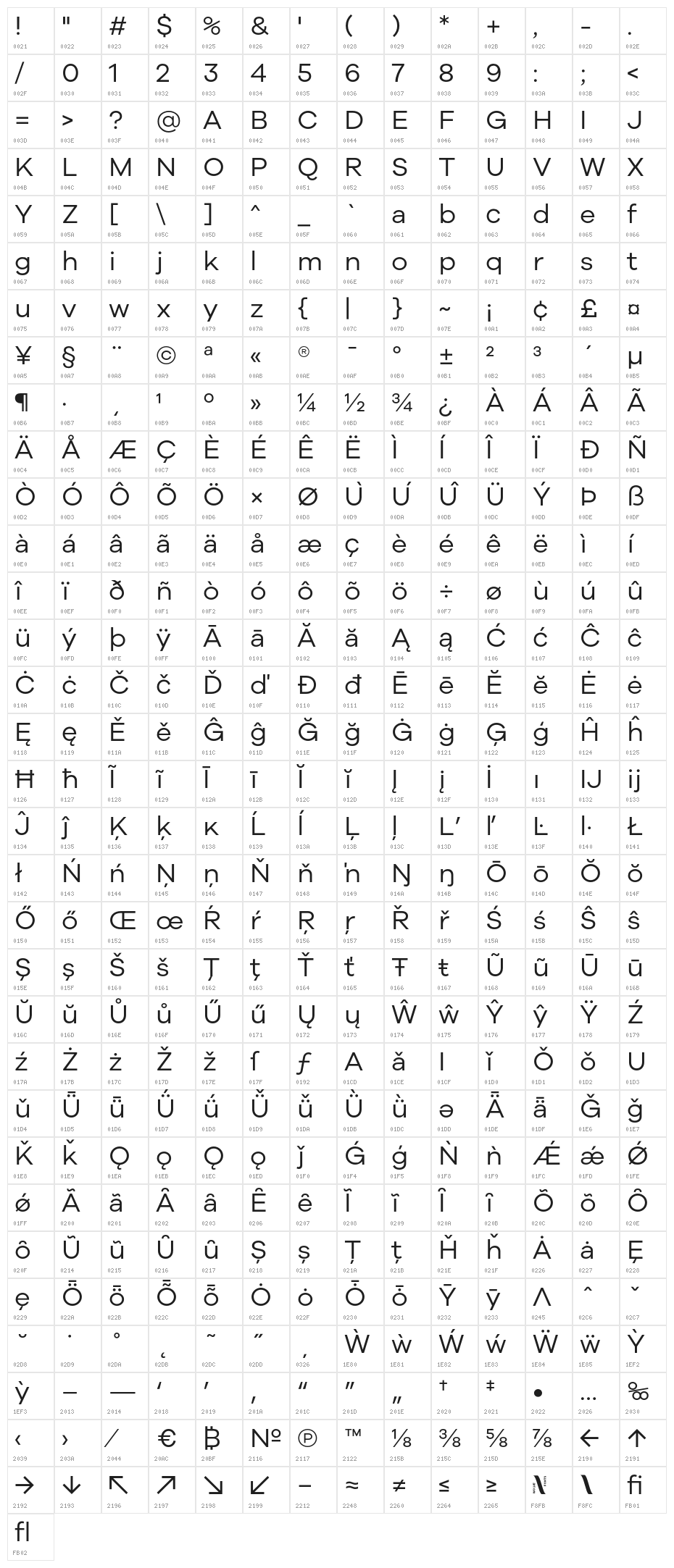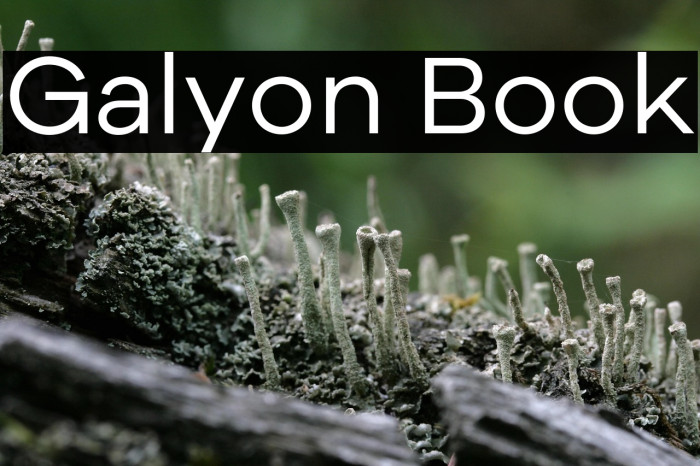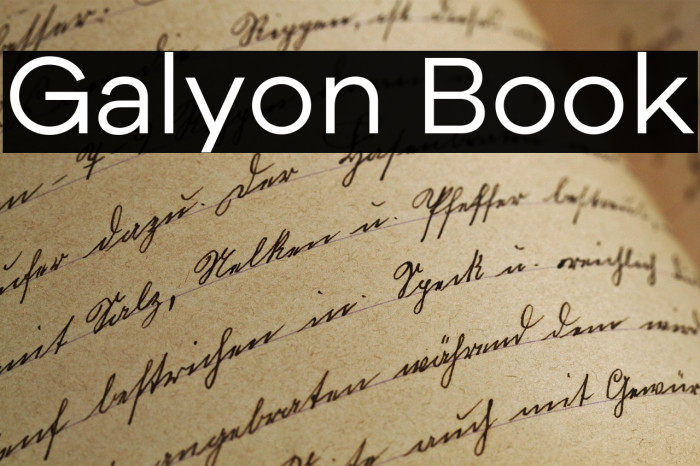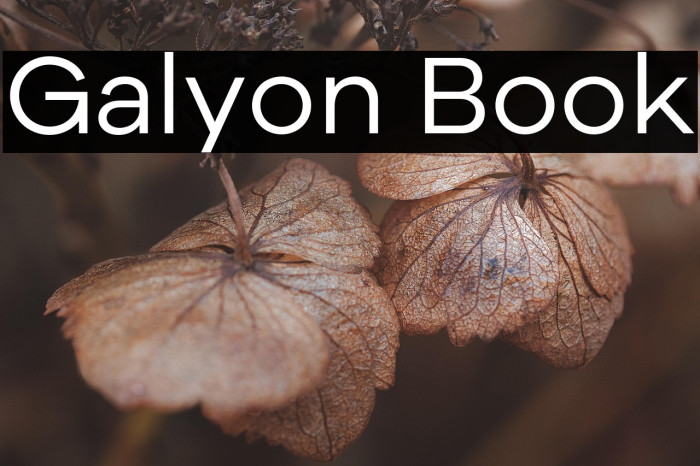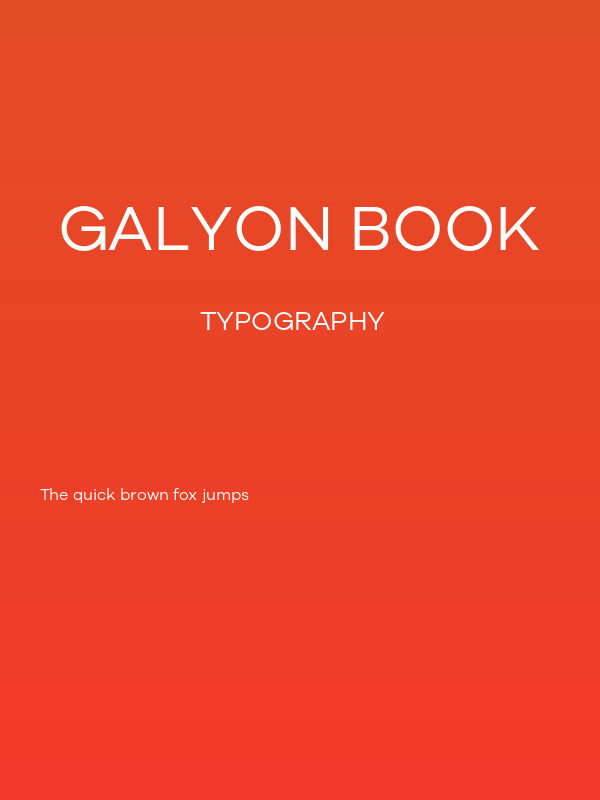
Galyon Book Font
Galyon Book Description
This typeface features a clean and modern sans-serif design, characterized by its geometric shapes and balanced proportions. The uppercase letters are uniform in height, providing a sense of stability and order. The lowercase letters maintain a consistent x-height, contributing to readability and a harmonious appearance. The numerals are clear and distinct, making them easily legible. Special characters are well-integrated, maintaining the overall aesthetic of the typeface. The strokes are even, with minimal contrast, emphasizing simplicity and clarity.